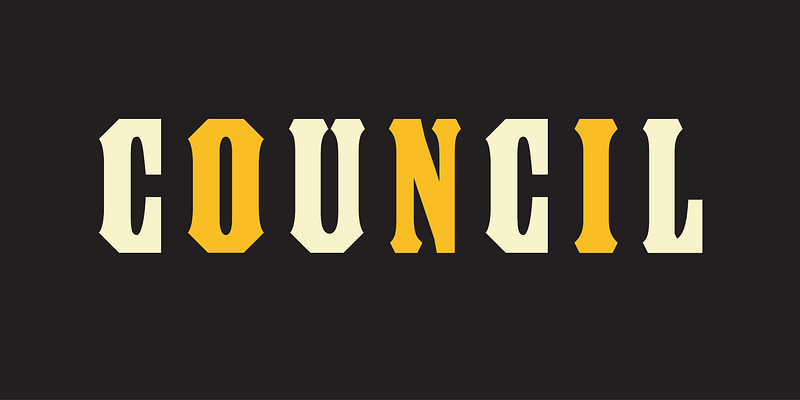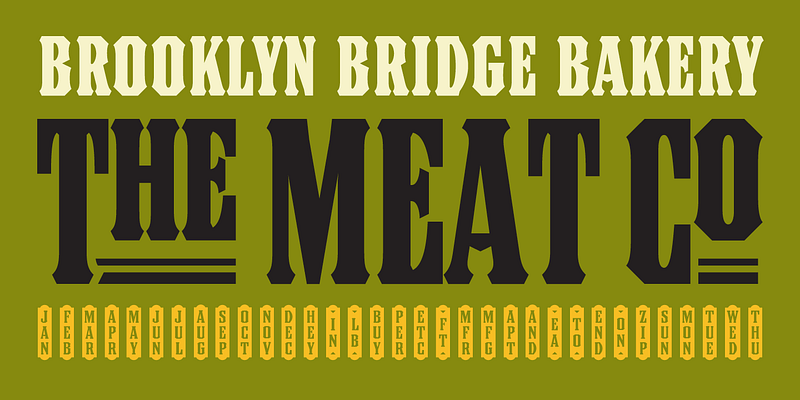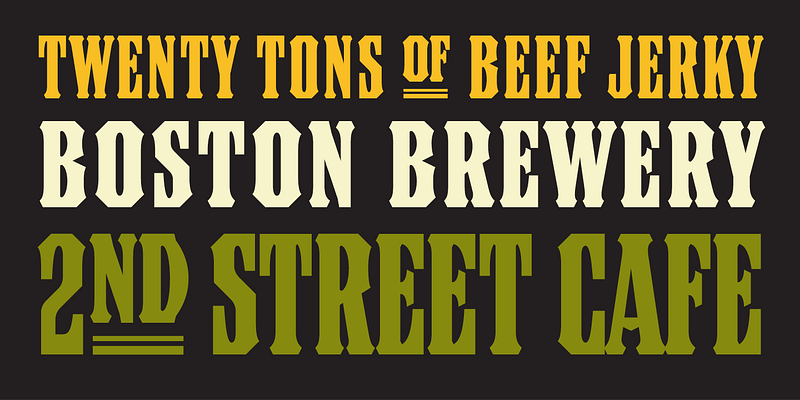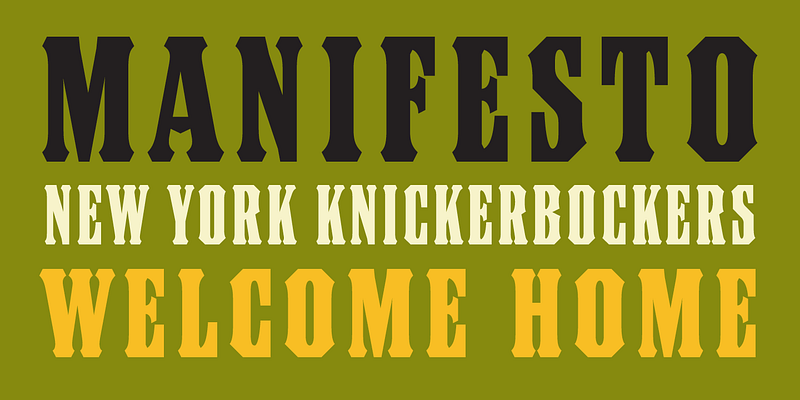
Council was inspired by the capital letters, planographically printed, on a candy tin John Downer bought at an antique store. The tin is the size and shape of a hat box, and it was made in the early 1900s for John G. Woodward & Co. of Council Bluffs, Iowa. The lettering was of interest to Downer both for its skillful design and because of its strong resemblance to wood type. The lettering was neither perfectly consistent nor slavishly executed, but it had the general look of being composed rather than drawn. Curiously, though, while this lettering style has many of the display attributes of wood type, it appears not to have been copied from any one known wood type font of its day. It is a meticulous synthesis of typographic and lithographic sensibilities. In Downer’s estimation, its dense, compact appearance seems to be the result of a commercial lettering artist’s unabashed admiration of xylographic poster types. He regards it as an example of mimicry in the best sense of the word.
Downer’s work on Council began in 1996 and concluded in 1999. He tried to develop the main font with as much fidelity to the proportions of the characters on the candy tin as was reasonable while adhering to certain established typeface production standards of today. (This font is kerned, for instance.) Of the full-size capitals in the face, only those he found in the name and location on the candy tin owe their shapes to one particular source. Thus, the A, B, C, D, F, G, H, I, J, L, N, O, R, S, U, W, and & all have models. It should be mentioned that the D is unusual because it is the only letter with a convex side in this alphabet. This inconsistency exists in the original and is one Downer decided to preserve. The S, by comparison, had a squarish form he didn’t favor, so he deviated from it in his font. The balance of the upper case and small caps, plus the figures, punctuation, monetary symbols and miscellaneous reference signs represent the designer’s attempt to fill out the font.
The Word Logos were added later. There are no stacked letters to be seen on the candy tin, and just one raised letter, but given the narrowness of the characters in his font, Downer thought that short stacks or other arrangements of characters would be useful as a companion set.